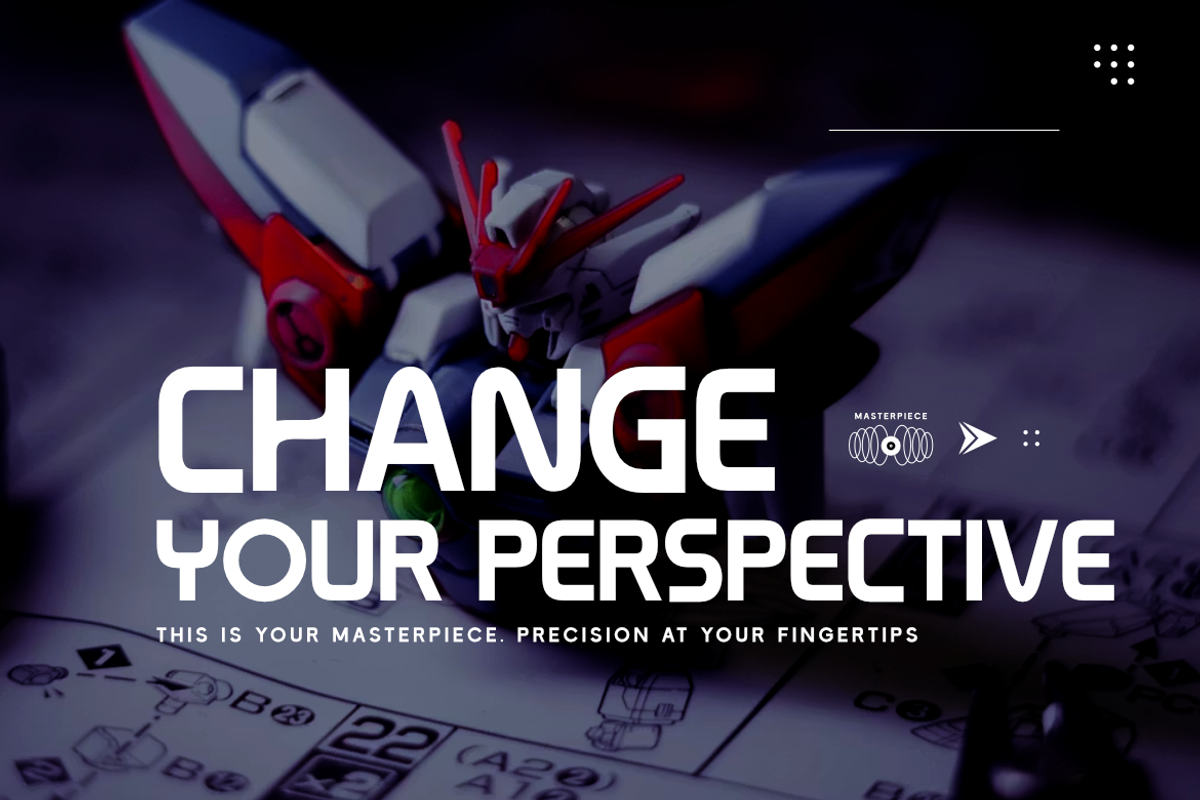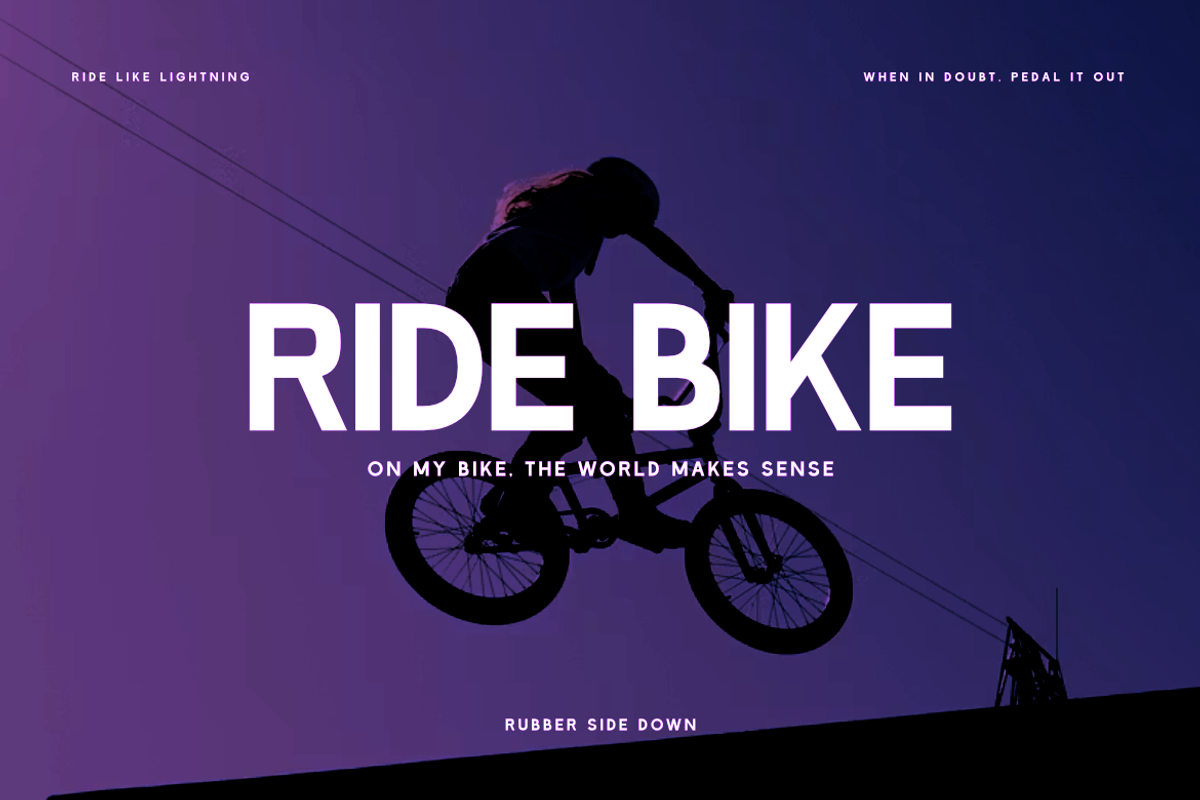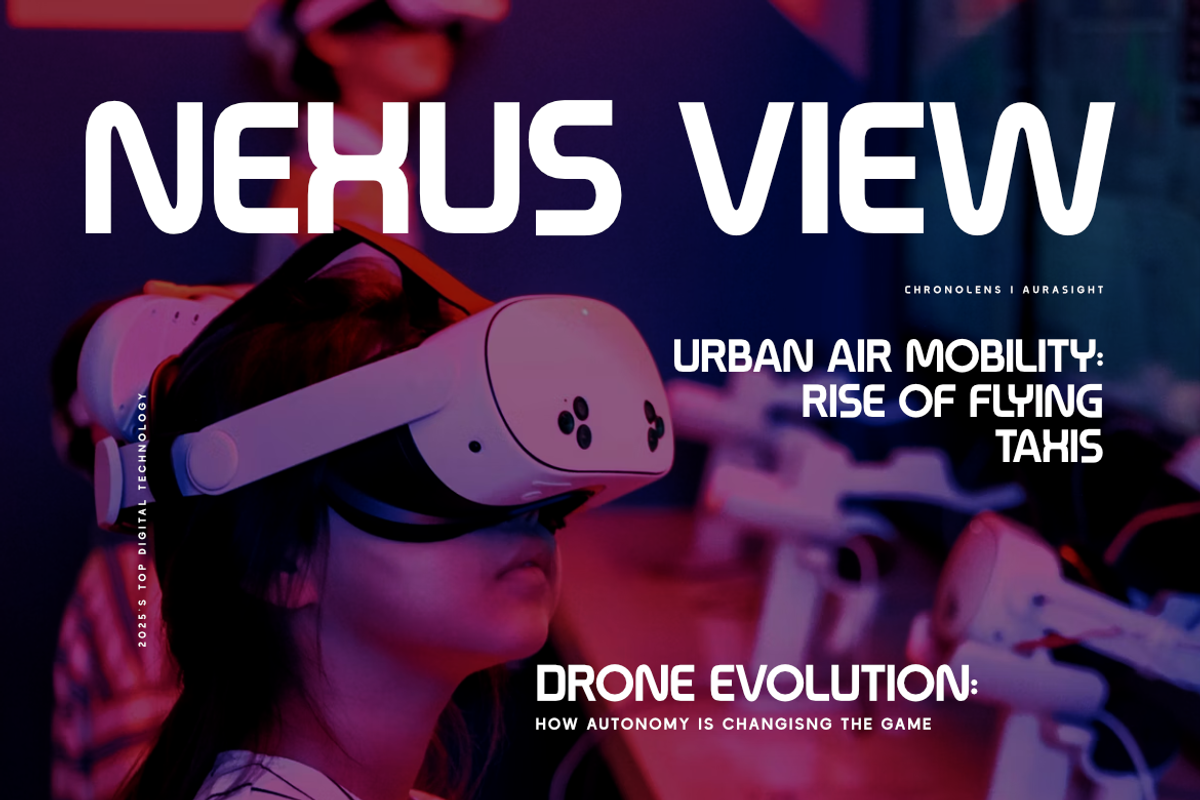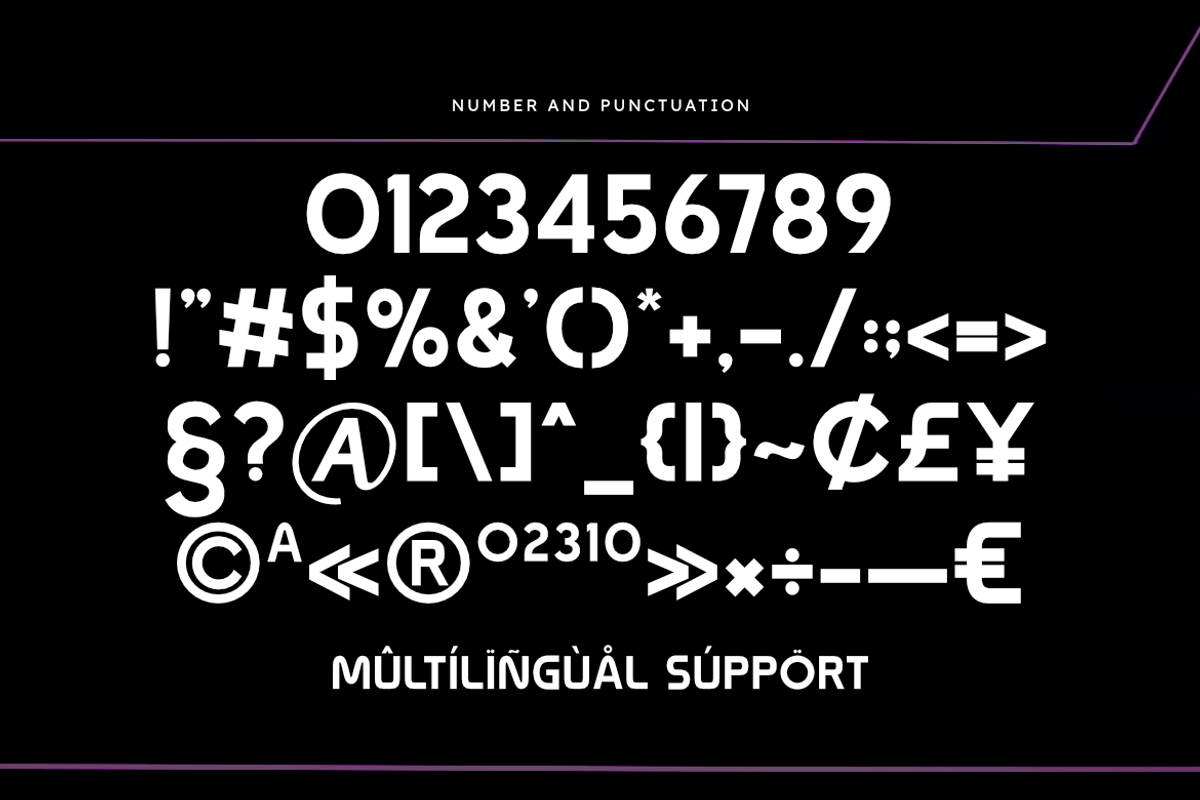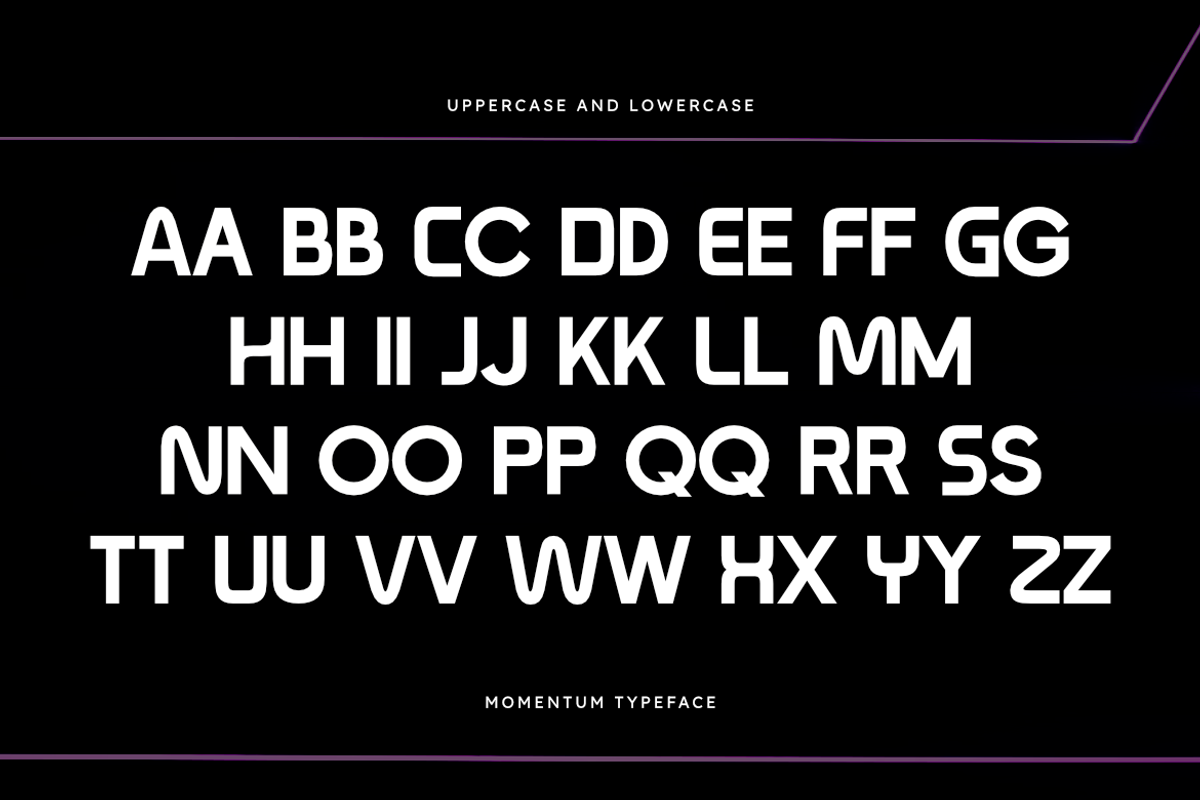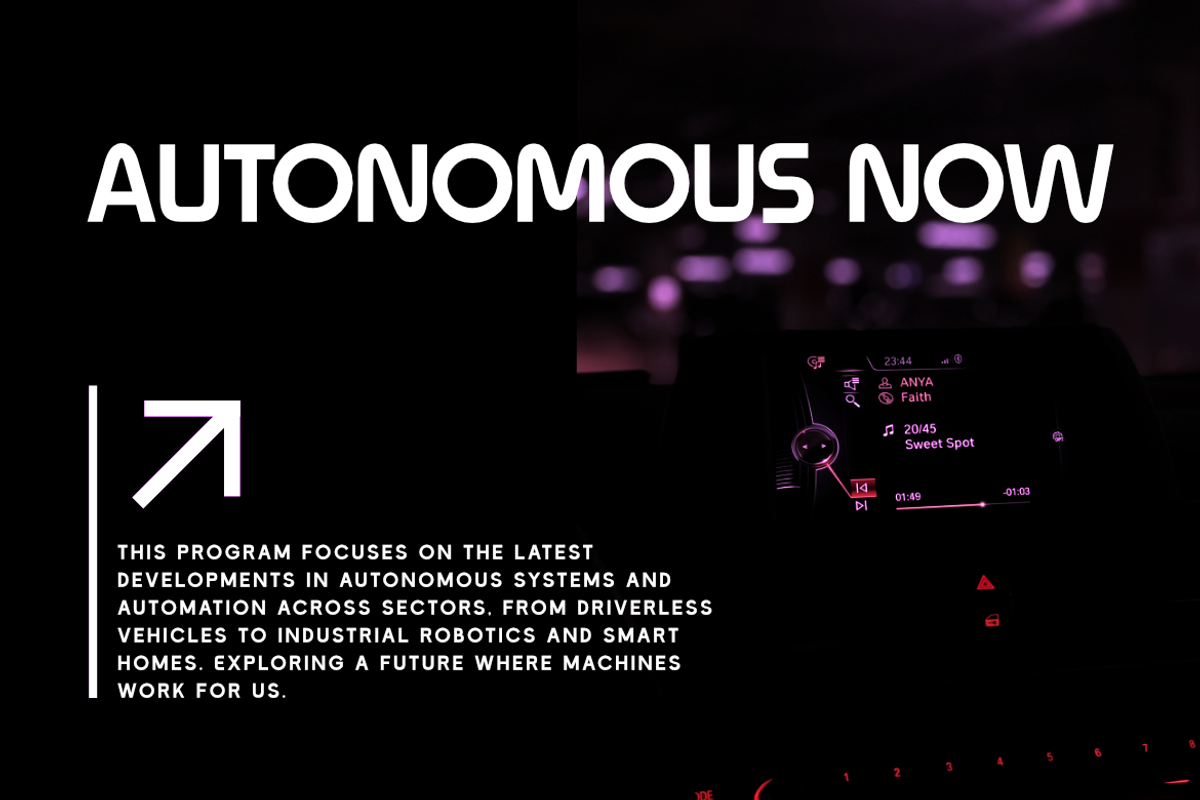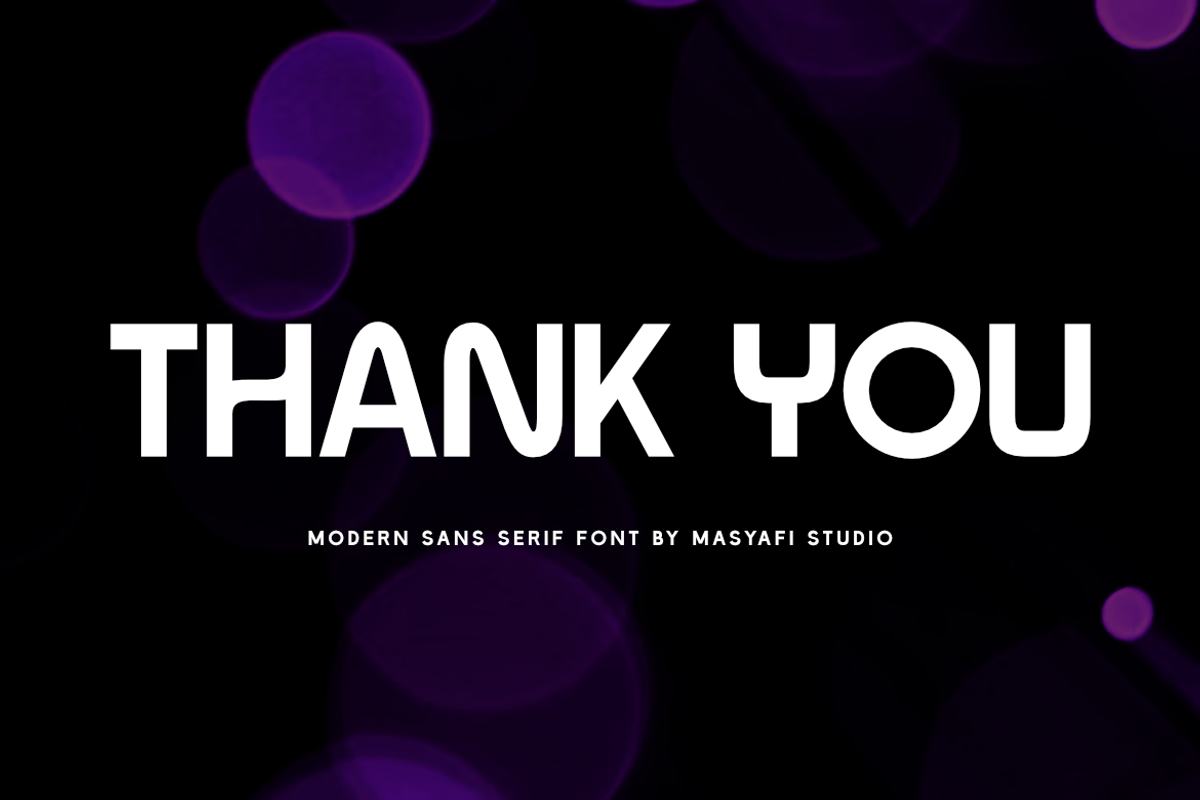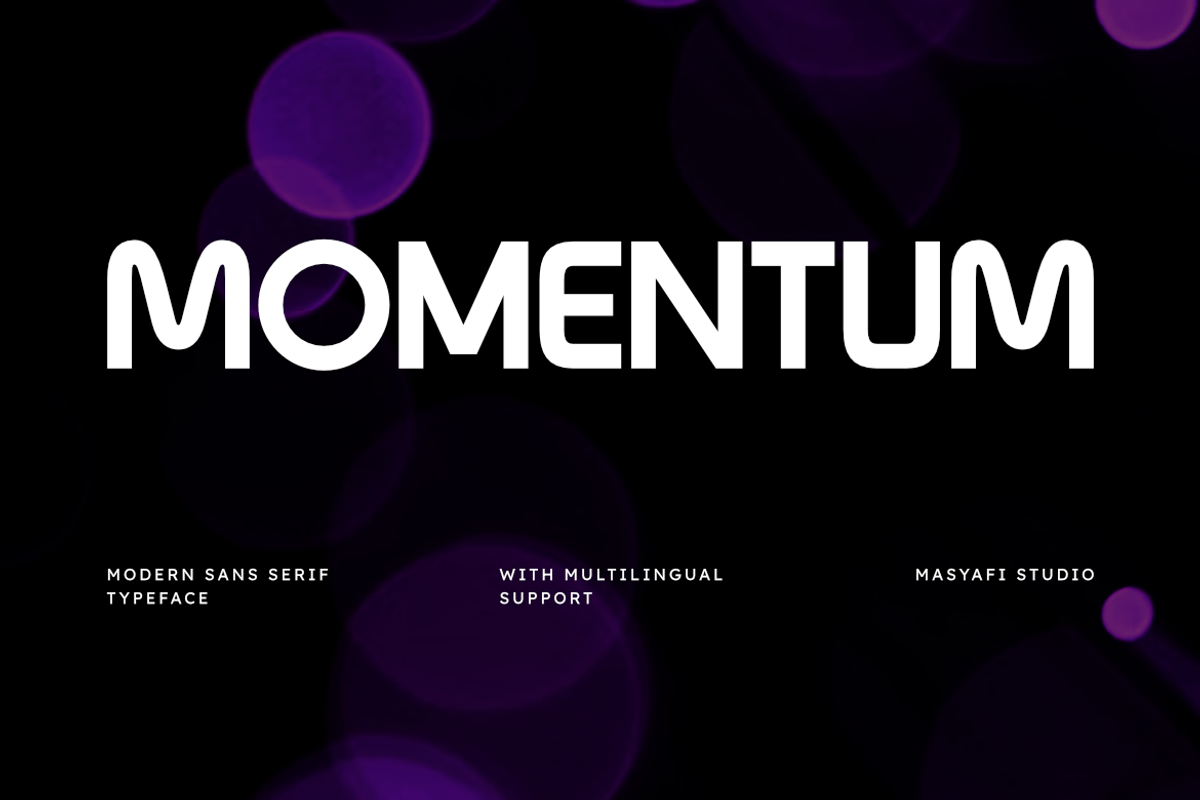
Momentum | Modern Rounded Sans
Introducing Momentum, a versatile and modern sans serif typeface from Masyafi Studio. Characterized by its sleek lines and soft rounded terminals, Momentum captures a sense of continuous motion and contemporary elegance.
This typeface was crafted to meet the needs of modern designers who require a font that is both stylish and functional. Its wide-set proportions and clean architecture make it stand out in headlines while remaining perfectly legible in smaller body text.
Why Momentum? The "Momentum" font is perfect for creators looking to build a brand that feels approachable yet professional. It’s an excellent fit for startups, tech companies, fashion labels, and lifestyle brands. With built-in Multilingual Support, you can take your message to a global audience without losing your visual identity.